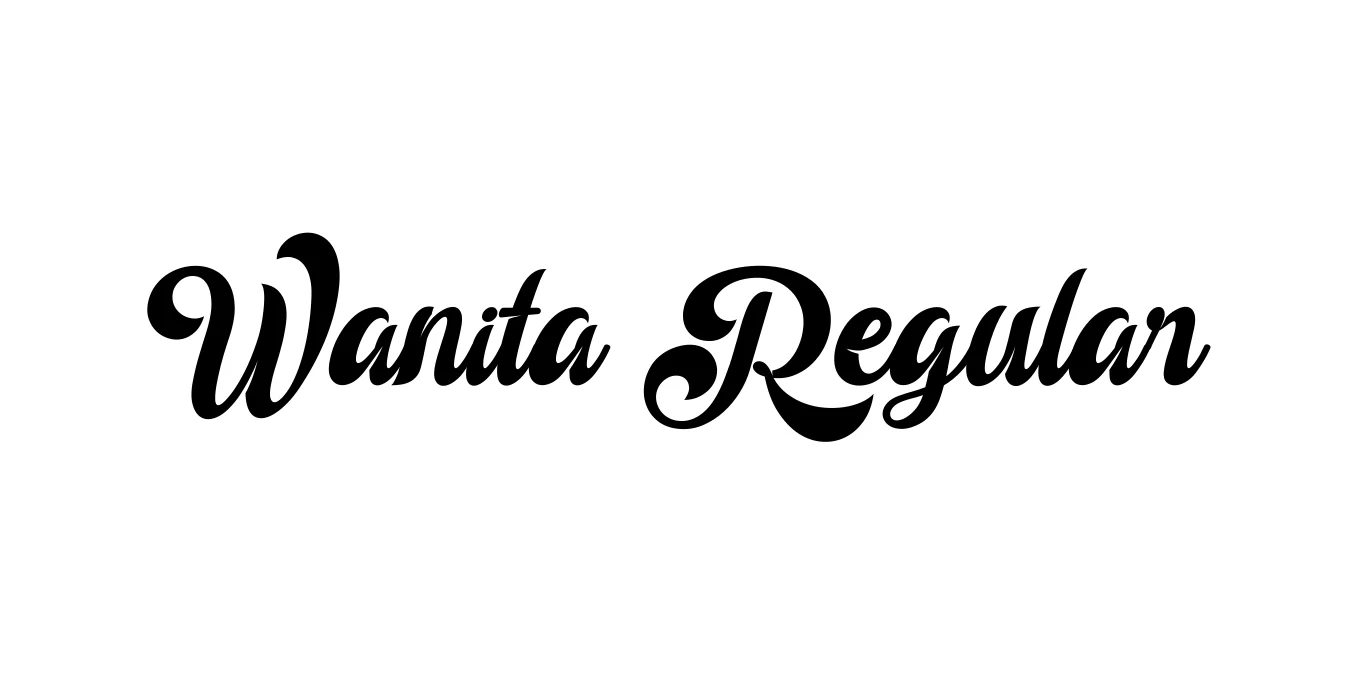
Wanita Regular
Designed by StringLabs Creative
Wanita Regular is an elegant and sophisticated script typeface that captures the essence of modern calligraphy with a delicate touch. Featuring smooth, flowing strokes and subtle decorative flourishes, this font is meticulously crafted to lend a sense of grace and high-end luxury to any creative project. Its high-contrast lines and organic rhythm make it a standout choice for designers who require a balance between traditional penmanship and contemporary digital aesthetics.
Released as a versatile tool for high-end branding and editorial layouts, Wanita has gained popularity for its legibility and rhythmic letterforms. It is frequently employed in wedding stationery, fashion photography overlays, and boutique packaging design. The font provides a timeless, handcrafted feel that ensures every design looks personalized and professionally finished, bridging the gap between classic artistry and modern design requirements.
Wanita Regular Best Uses
Ideal for invitations, RSVP cards, and romantic save-the-date announcements.
Perfect for beauty, fashion, and lifestyle brands seeking a sophisticated identity.
Excellent for creating high-engagement quotes, Instagram stories, and Pinterest graphics.
Works beautifully for magazine headers, decorative pull quotes, and title pages.